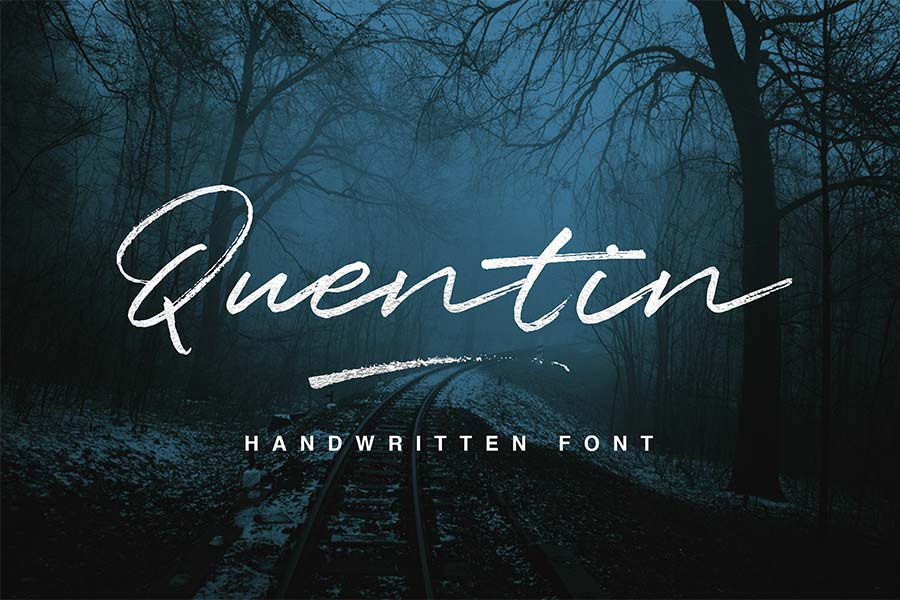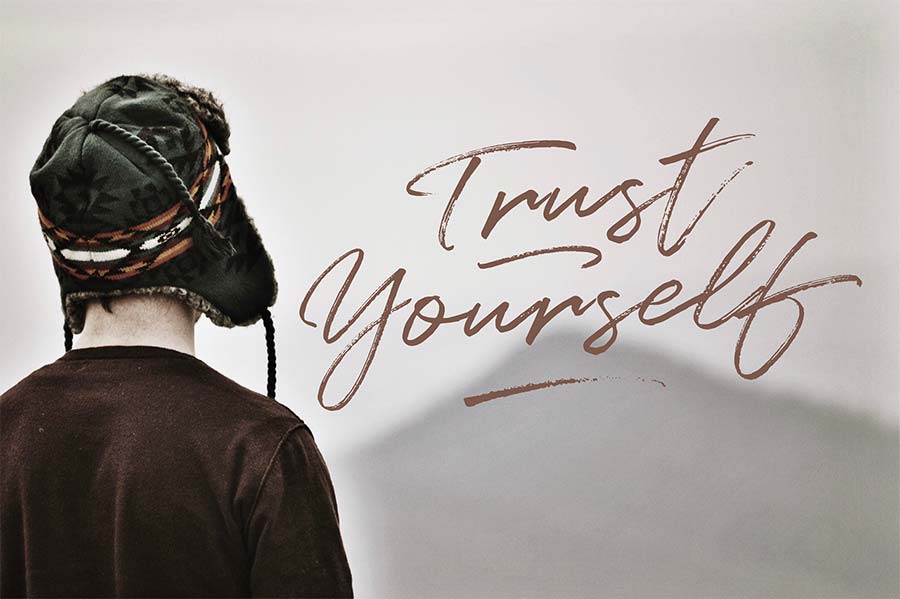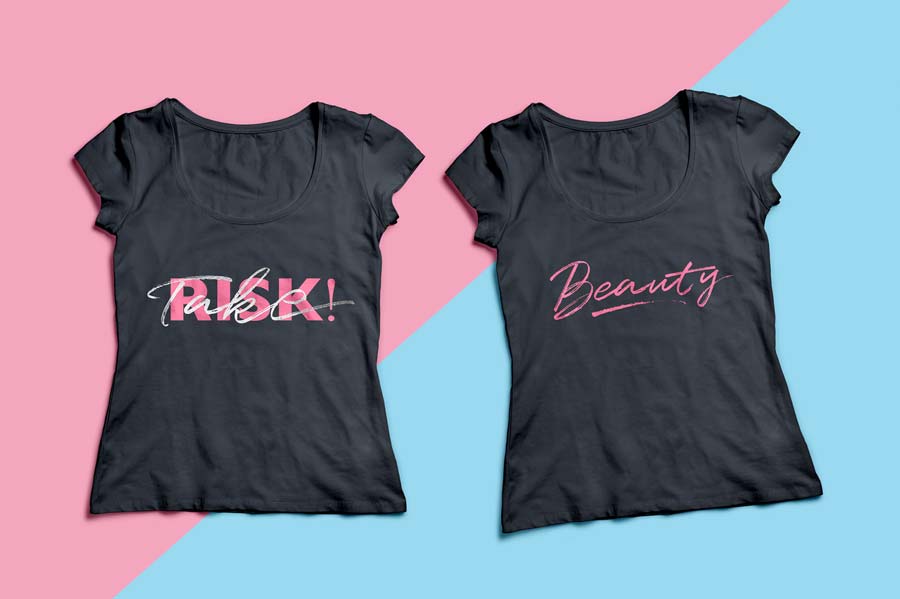
Quentin is a free handwriting font that retains the raw textures of dry strokes. It has a fluidic handwriting flow, making it also looking like a signature font too.
Quentin is a great option as logotype, and also will look good on prints, packaging and social media ads.